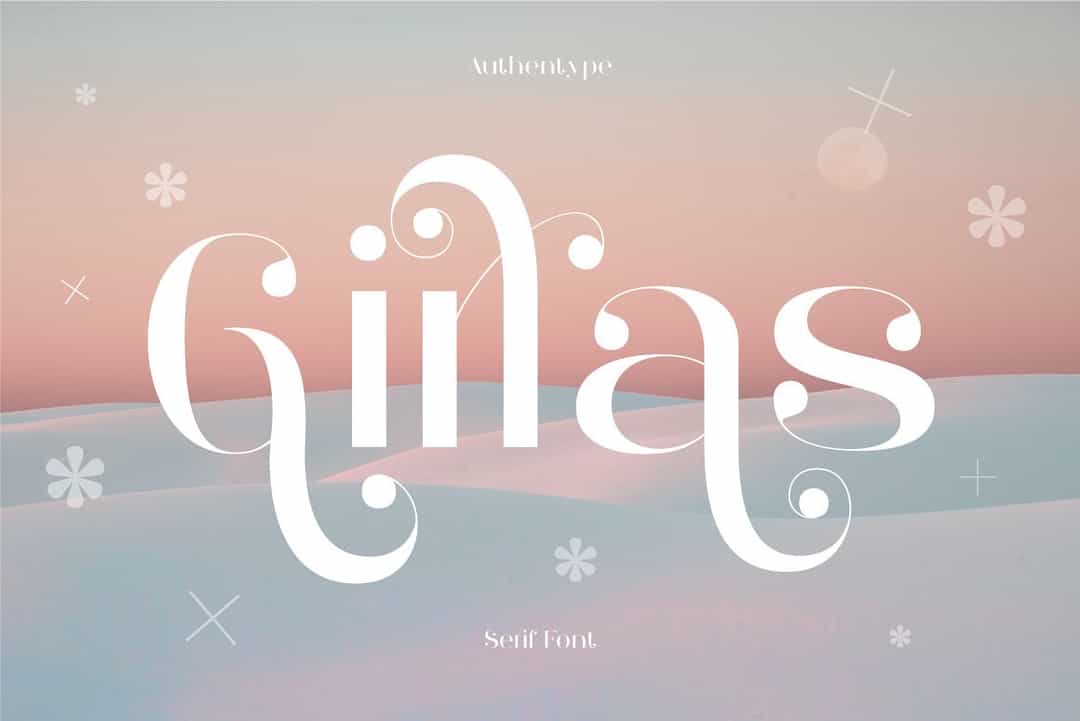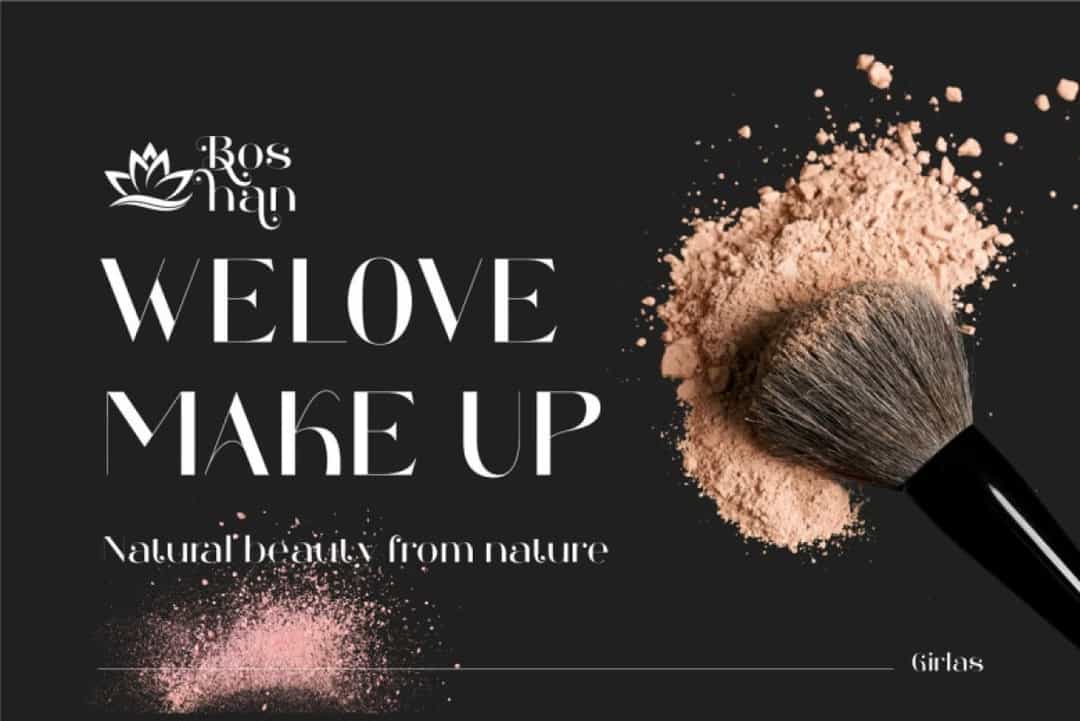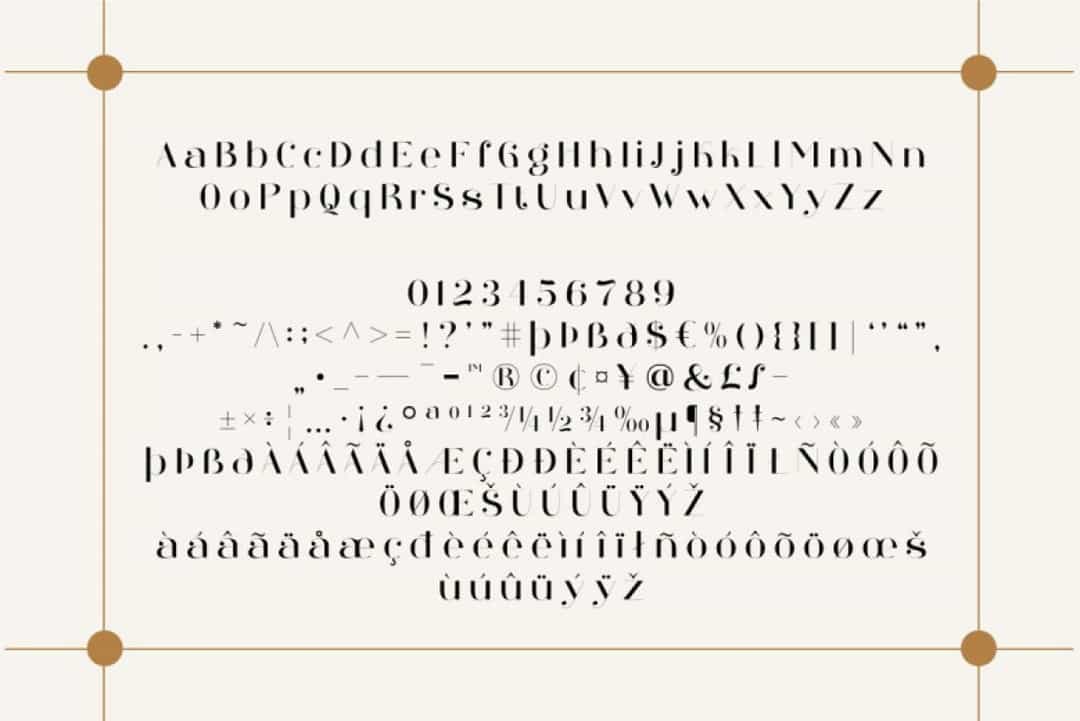
Girlas is an eye-catching high contrast font. Girlas can help promote beauty products as it features numerous feminine-esthetic ligatures and letters for creating feminine aesthetic designs.